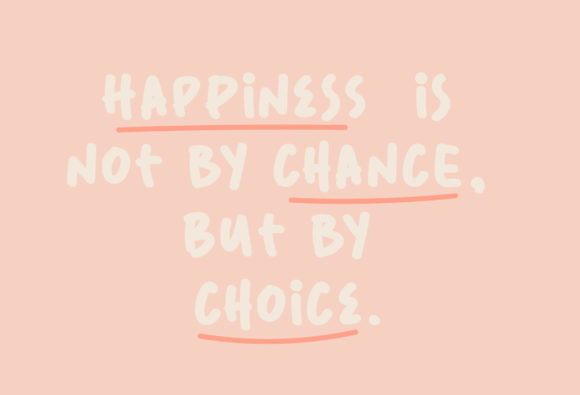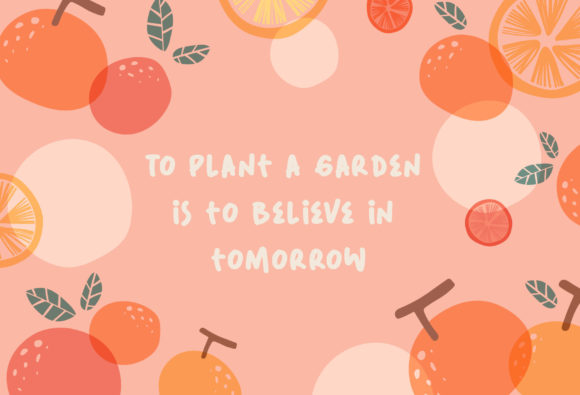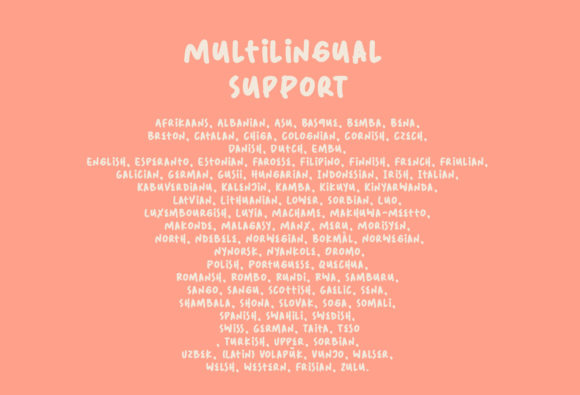
Introduction to Roots N Branches Font
Have you ever stumbled upon the perfect design element that just makes your project pop? For me, it was the Roots N Branches Font. I was working on a birthday invitation for a close friend and was struggling to find the right font to capture the playful and whimsical vibe of the party. That’s when I discovered this stunning, hand-painted display font that added an instant touch of joy to my design.
As a designer, I can attest to the value of having high-quality design resources like the Roots N Branches Font in your toolkit. With its transparent background and free download option, this font is an absolute gem for any creative project. Whether you’re working on a party invitation, a social media graphic, or a branding project, this font is sure to bring a smile to your face and add a touch of personality to your design.
- High-quality design resource ideal for creative projects, offering a unique blend of modern and vintage elements.
- Includes a wide range of characters, including uppercase and lowercase letters, numbers, and special symbols, making it a versatile design resource.
- Perfect for designers seeking a distinctive and eye-catching font for their next creative project.
Honest Review: Roots N Branches Font
As a designer, I’m always on the lookout for high-quality design resources to elevate my creative projects. The Roots N Branches Font is one such resource that caught my attention, and I’m excited to share my honest review with you.
- ✨ Unique and creative design: The Roots N Branches Font has a beautiful, hand-drawn feel that adds a touch of elegance to any project.
- ✨ High quality: The font is crisp and clear, making it perfect for print and digital projects.
- ✨ Transparent background: The font’s transparent background allows for seamless integration with other design elements.
Any limitations:
- ⚠️ Not suitable for all projects: The font’s unique design may not be suitable for projects that require a more straightforward or formal look.
Overall, I’m impressed with the Roots N Branches Font, and I think it’s a valuable addition to any designer’s toolkit. While it may have some limitations, its unique design and high quality make it a great choice for creative projects that require a touch of elegance.
The Roots N Branches Font is a high-quality design resource that can elevate your creative project with its unique style and versatility. This free download is perfect for designers and non-designers alike, offering a transparent background that makes it easy to integrate into various designs.
Common Use Cases for Roots N Branches Font
The Roots N Branches Font is versatile and can be used in a variety of contexts, including:
- Branding and marketing materials
- Print design and publishing
- Presentations and reports